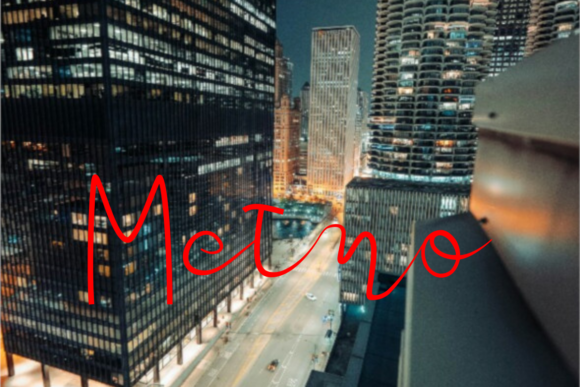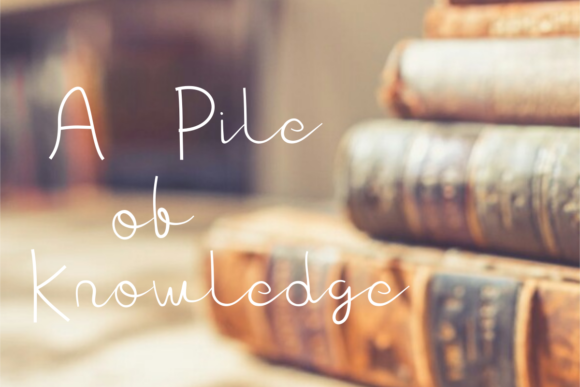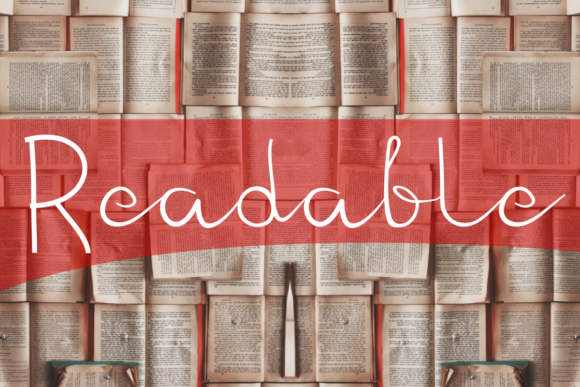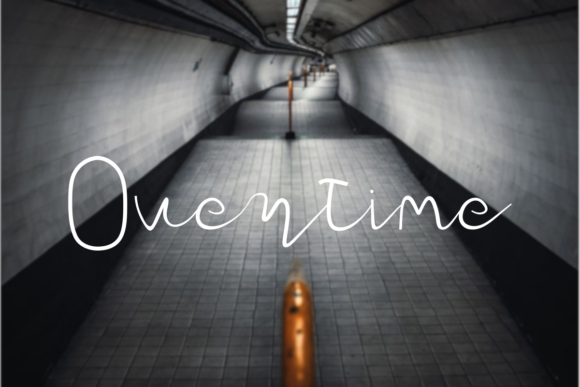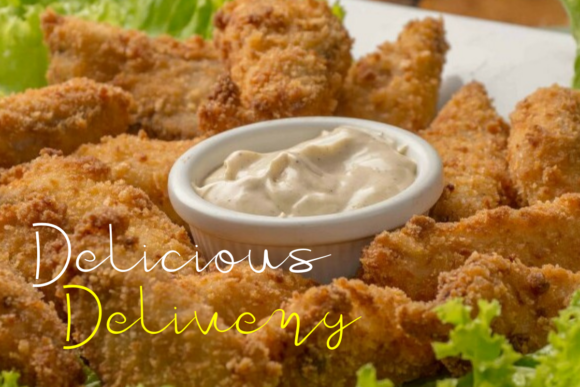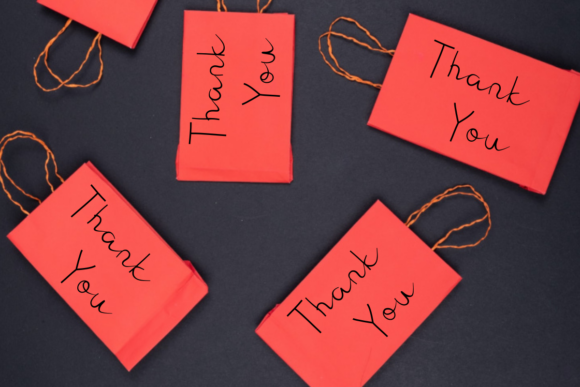
Script Fonts Sawdara Font 0 136 FacebookTwitterPinterestWhatsApp 1 of 7 Sawdara Font Poster 2... Sawdara Font Poster 3... Sawdara Font Poster 4... Sawdara Font Poster 5... Sawdara Font Poster 6... Sawdara Font Poster 7... About Sawdara Font Sawdara is a sweet and delicate handwritten font. Dainty and joyful, this font will be ideal for writing wedding invitations, cards or any other design that may need a romantic, personalized touch! DOWNLOAD NOW